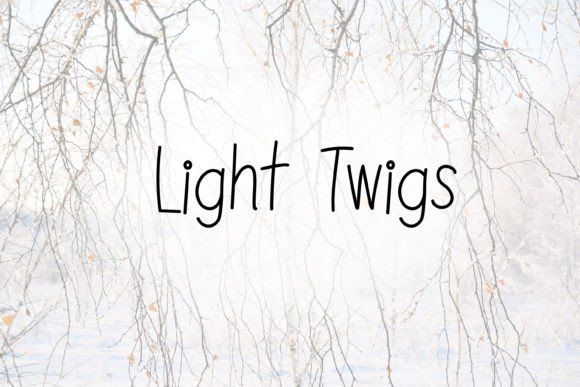
Prepare to be swept away by the beauty of Light Twigs Font, an ethereal creation that will add a touch of enchantment to all your crafting endeavors. Crafted with the utmost care by the renowned Simple Font, this enchanting script font exudes an air of effortless elegance, inviting you to unleash your creativity and weave tales of wonder.
Immerse yourself in the world of Light Twigs and discover a font that dances across the page with grace and fluidity. Each stroke is a testament to the boundless imagination of its creator, capturing the essence of delicate brushwork and transforming your words into works of art. Whether you're crafting heartfelt Christmas greetings or adding a whimsical touch to your latest design project, Light Twigs will effortlessly elevate your creations.
With its versatility, Light Twigs transcends the boundaries of ordinary fonts. Its graceful curves and enchanting style seamlessly adapt to a myriad of design concepts, making it a treasure for any creative soul. Whether you seek to adorn your Christmas cards with festive greetings, craft enchanting invitations for special occasions, or add a touch of whimsy to your digital designs, Light Twigs will effortlessly elevate your creations.
Step into the realm of endless possibilities with Light Twigs, a font that will ignite your imagination and captivate your audience. Experience the sheer joy of crafting with a font that dances across the page with effortless grace, carrying your words to new heights of allure and enchantment.